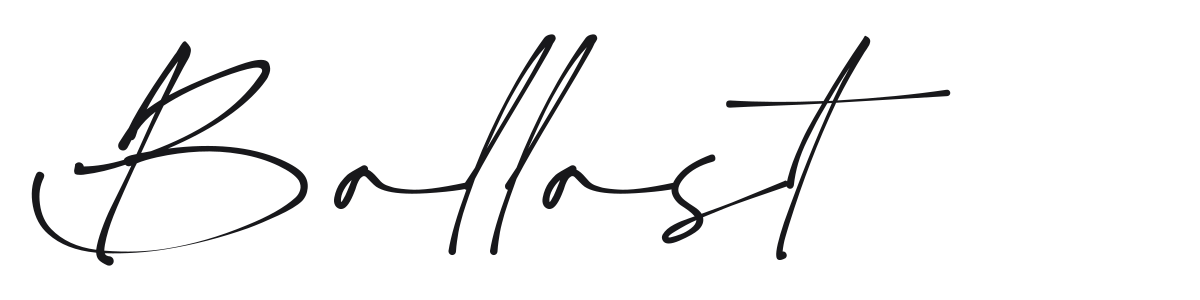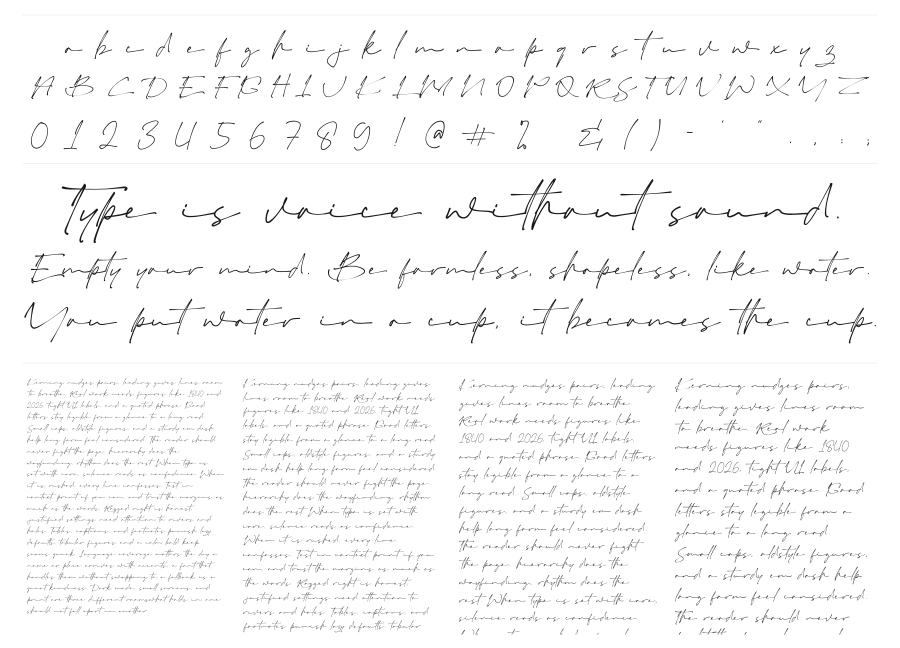
Ballast
Ballast is a thin casual script built around sweeping, interconnected strokes that feel like a confident pen signature. The near-zero stroke contrast and generous horizontal rhythm keep it light and breezy across headline sizes. It fits naturally in branding, packaging, and editorial contexts that call for effortless elegance.